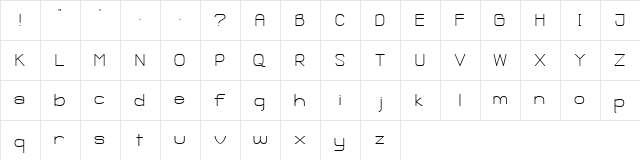
Ganix Apec Regular
Design Context for Ganix Apec Typeface
Ganix Apec takes a measured approach to typography — its balanced proportions and neutral character make it a reliable workhorse for both digital and print work.